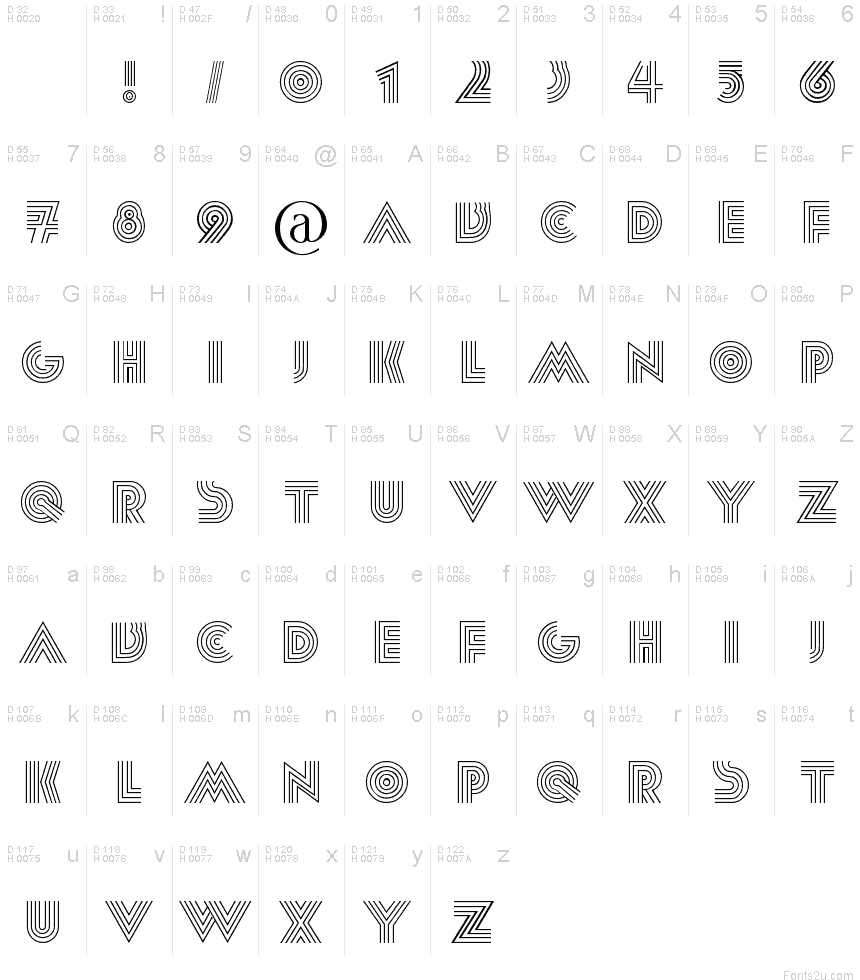
Paralis is a free groovy display font with tall, open capitals and a crisp geometric build. Repeated inline strokes turn each letter into a striped pattern, with sharp peaks set against circular forms. The effect is optical.
A music festival poster is its clearest setting, especially for electronic or experimental acts, and the same linear treatment suits album covers and club merchandise. Its maze-like curves and angular peaks also connect well with retro-futurist graphics and Op Art-inspired event branding.
Paralis